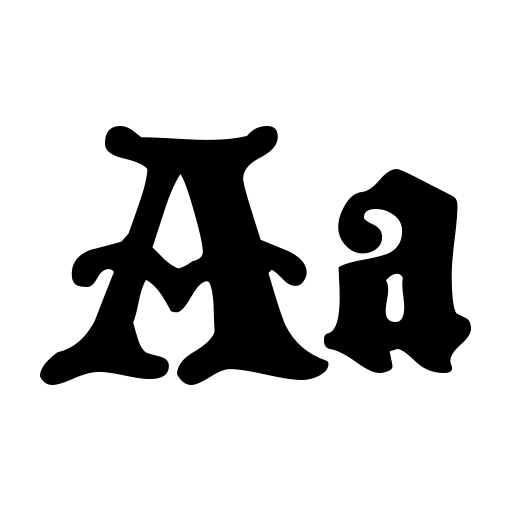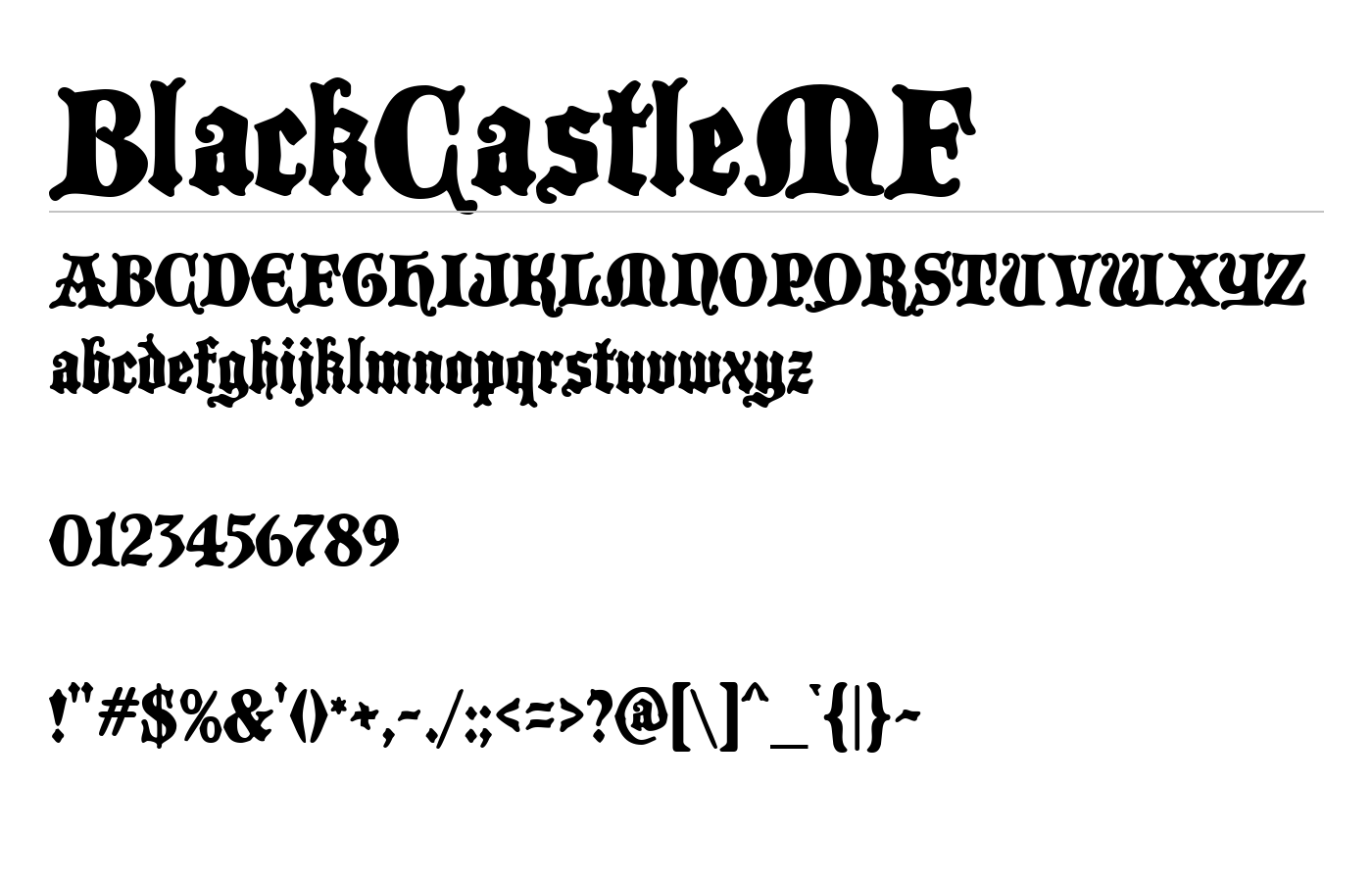
BlackCastleMF is a bold, serif typeface with a vintage, gothic style reminiscent of medieval blackletter fonts. Its heavy weight, high contrast, and decorative serifs create a dramatic and authoritative feel, making it ideal for branding, logos, headlines, or designs that want to evoke a sense of tradition and strong character. This font works best in large display sizes where its intricate details can shine and add a touch of historic elegance.
BlackCastleMF Font